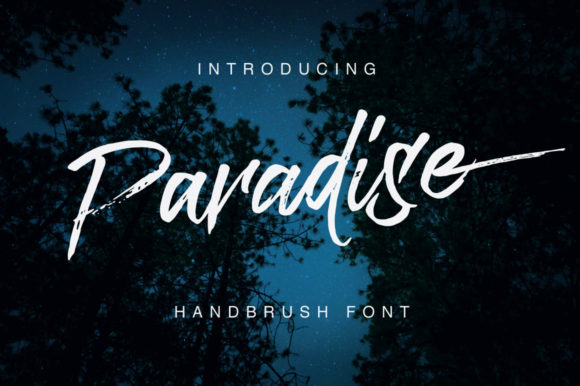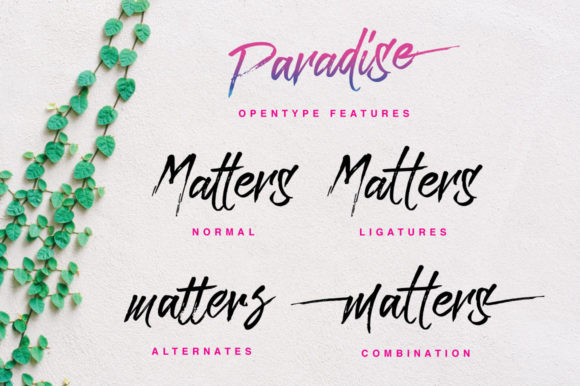
About Paradise Font
The Paradise is a beautiful hand painted script. It has a natural look which is perfect for adding a personal touch to your designs.
It’s great for apparel, branding, logos, printed quotes, invitations, image overlays, greeting cards, product packaging, text headers, and whatever else your imagination holds! .
Mix and match the alternate characters to add an attractive message to your designs.